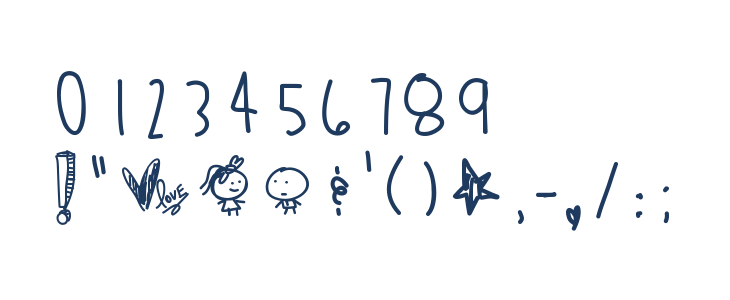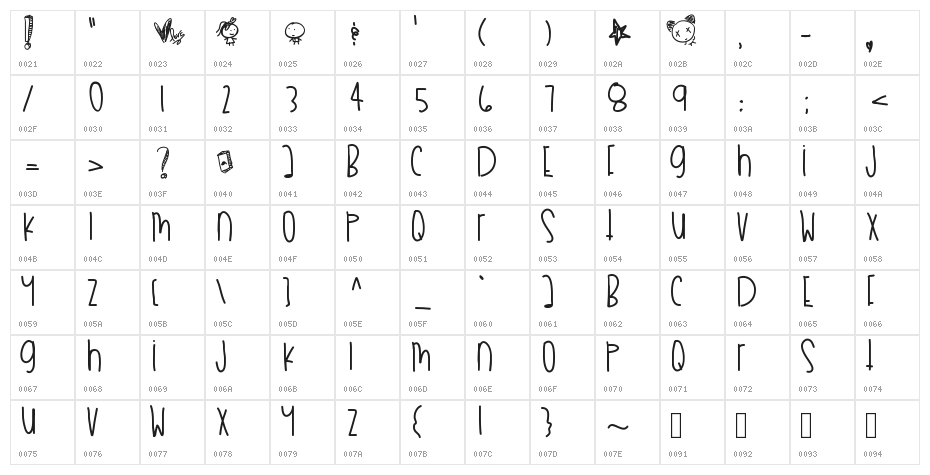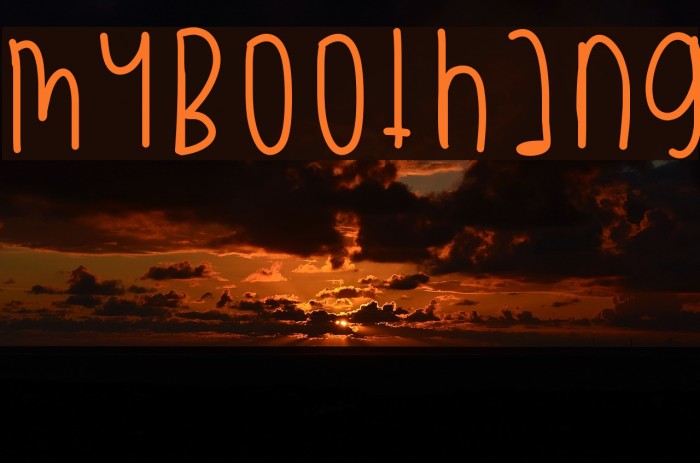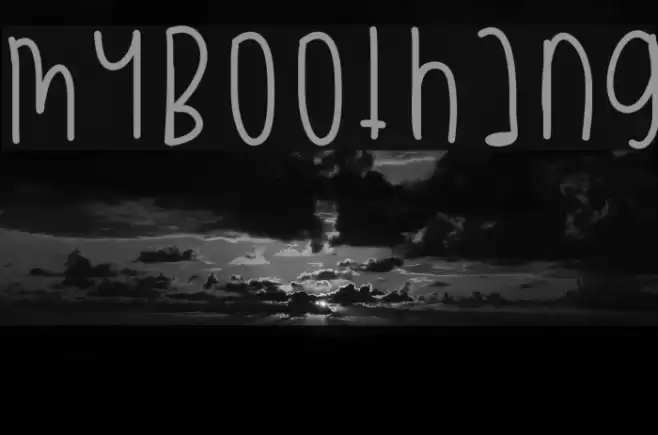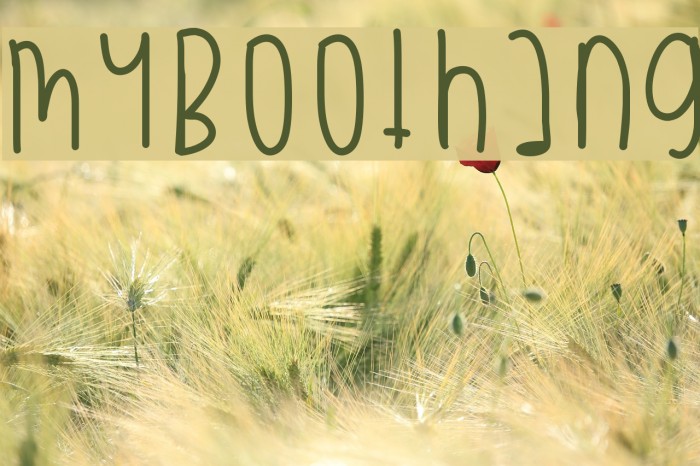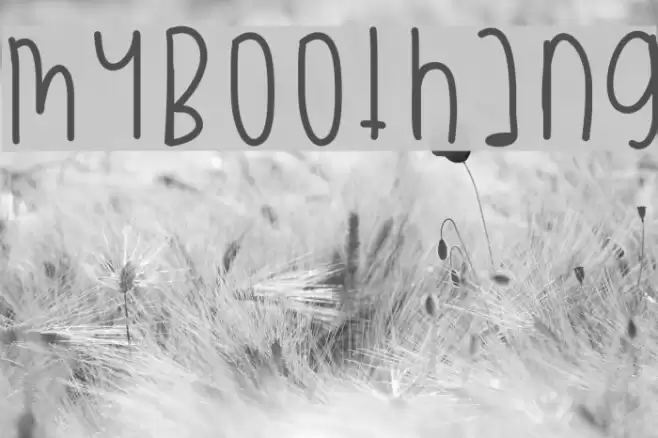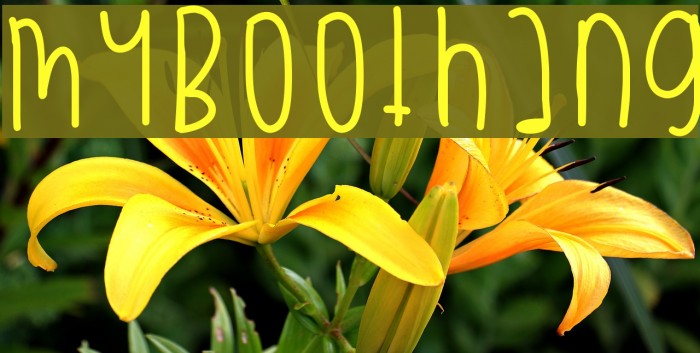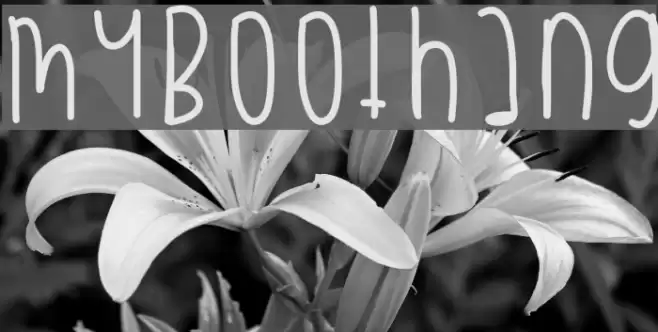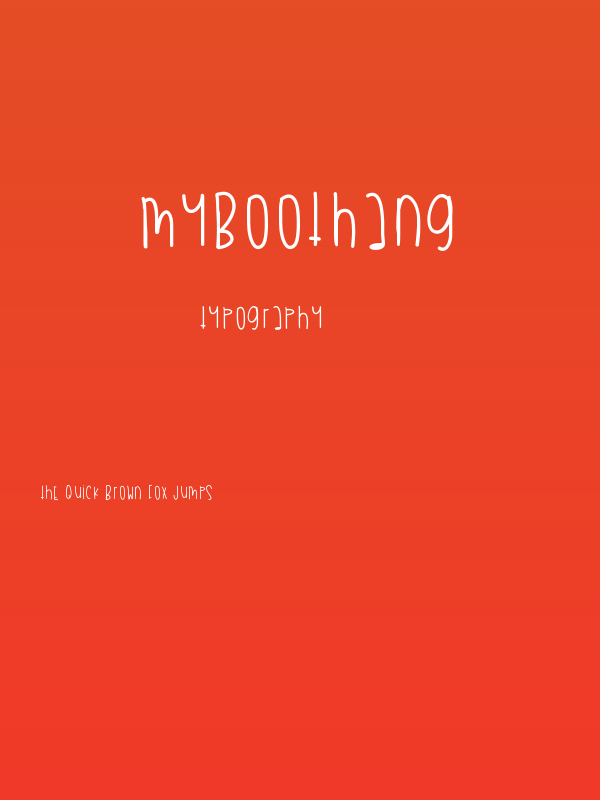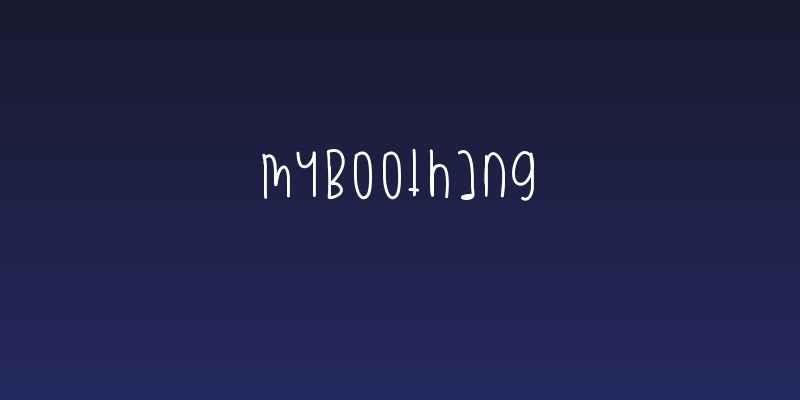
MyBooThang Font
MyBooThang Description
This playful and whimsical font features a handwritten style with a casual and friendly appearance. The characters are slightly elongated with a consistent stroke width, giving it a uniform look. The uppercase and lowercase letters maintain a cohesive style, with rounded edges and a slight tilt that adds to its informal charm. The numbers and special characters are designed to match the playful nature of the alphabet, making it ideal for creative projects. The font's unique personality is further enhanced by its hand-drawn illustrations, adding a touch of fun and creativity.
| Proposed Projects | Ideal for children's books, greeting cards, playful branding, and creative social media graphics. |